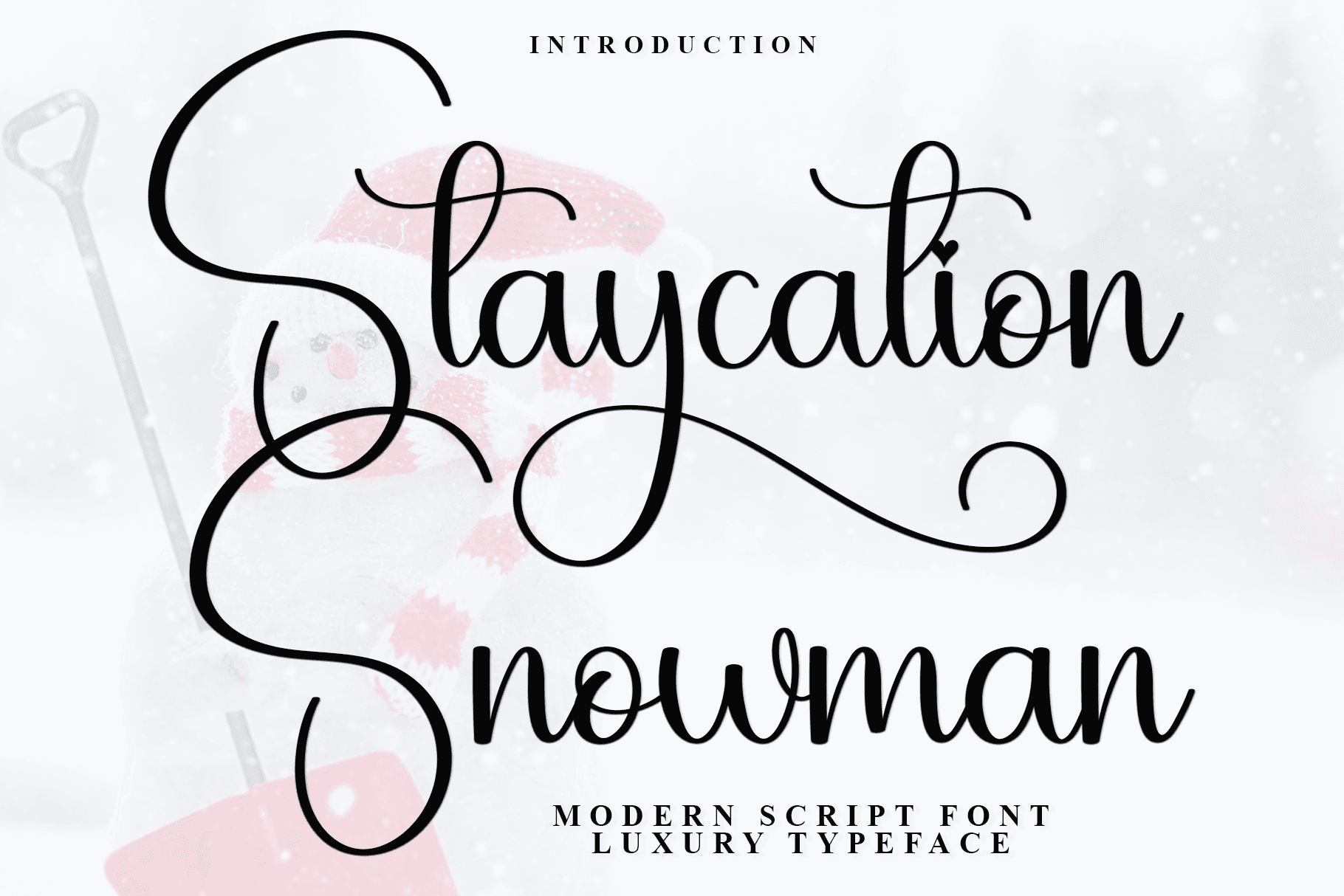
Staycation Snowman Font: ๐ Check out Staycation Snowman Font now! Explore this ๐ script fonts and claim your ๐ free download here. Let's start crafting together! ๐ Staycation Snowman is a casual and creative font that exudes warmth and friendline...